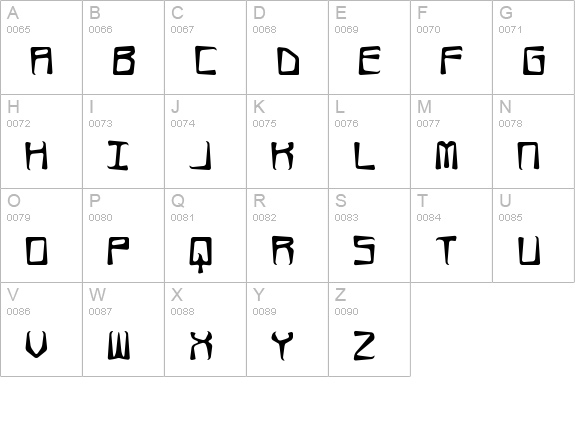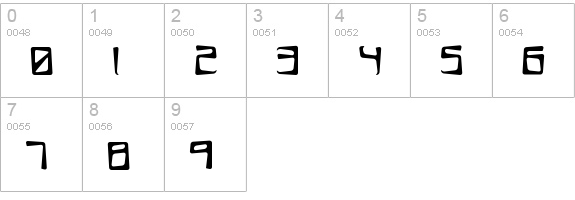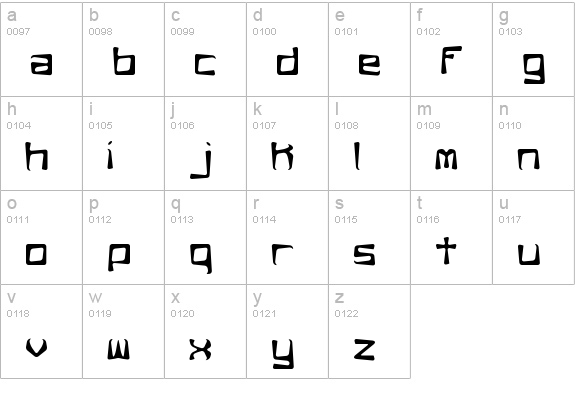
Rehearsal Offset BRK Font Details
Rehearsal Offset BRK font is a unique and eye-catching typeface that is perfect for adding a touch of creativity and personality to your designs. With its playful and hand-drawn appearance, this font is sure to make a lasting impression. The offset style of this font gives it a dynamic and energetic look, making it ideal for projects that require a bold and modern feel. Whether you're designing a poster, a logo, or a website, Rehearsal Offset BRK font will add a touch of excitement and flair. One of the best things about Rehearsal Offset BRK font is that it is free to download and use. You can easily access this font at FontsMarket.com, where you will find a wide range of free fonts to choose from. With just a few clicks, you can have this amazing font at your fingertips, ready to enhance your designs. Don't miss out on the opportunity to add Rehearsal Offset BRK font to your font collection. Its unique style and free availability make it a must-have for any designer or creative professional. Download it today and let your imagination run wild with the endless possibilities this font has to offer.